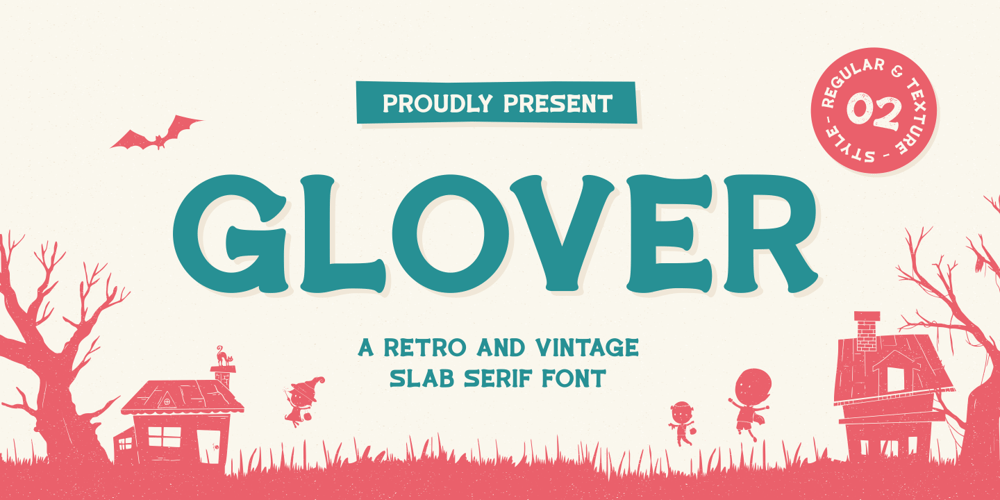
Glover Font Family was designed by Muhammad Hasan and published by Fype Co. Glover contains 2 styles and family package options. Glover is a Vintage Slab font available in regular and texture, it has styles a spooky, grungy, unique, covering a wide range of project types such as poster design, book covers, prints, headlines, magazines, packaging, branding. It will turn any design project into a true standout!